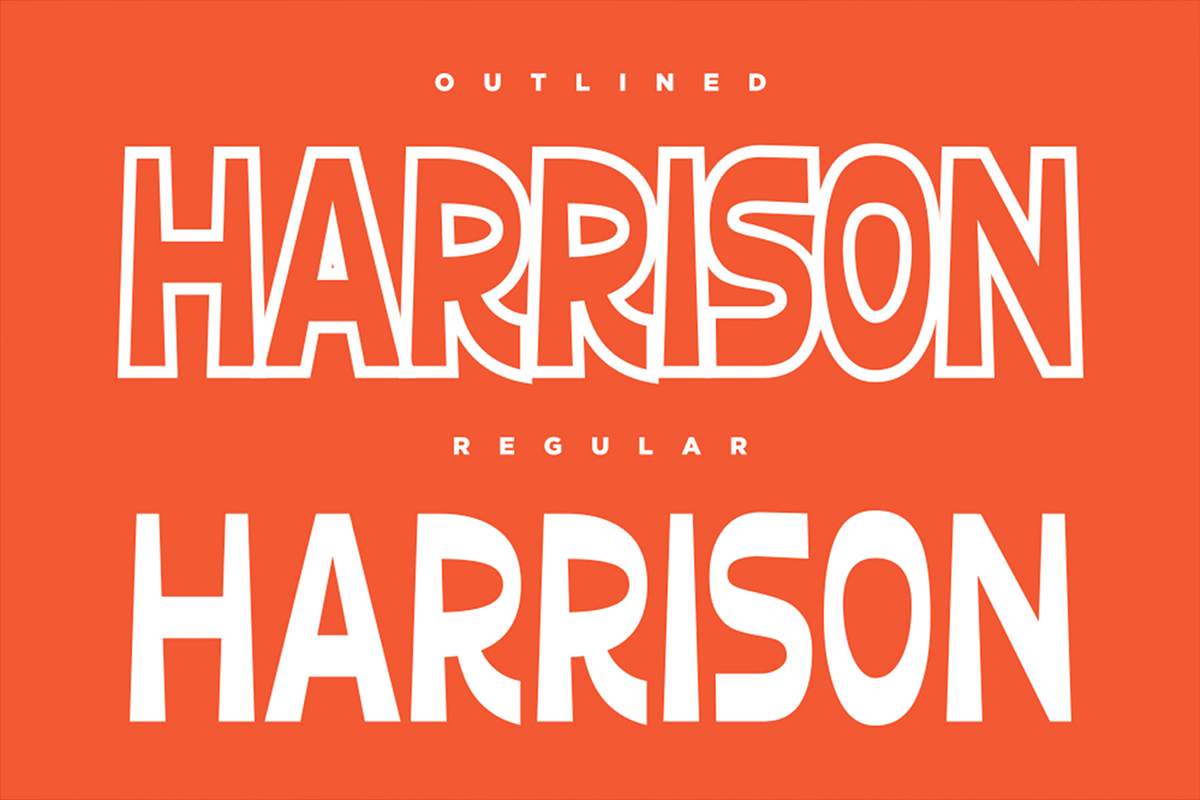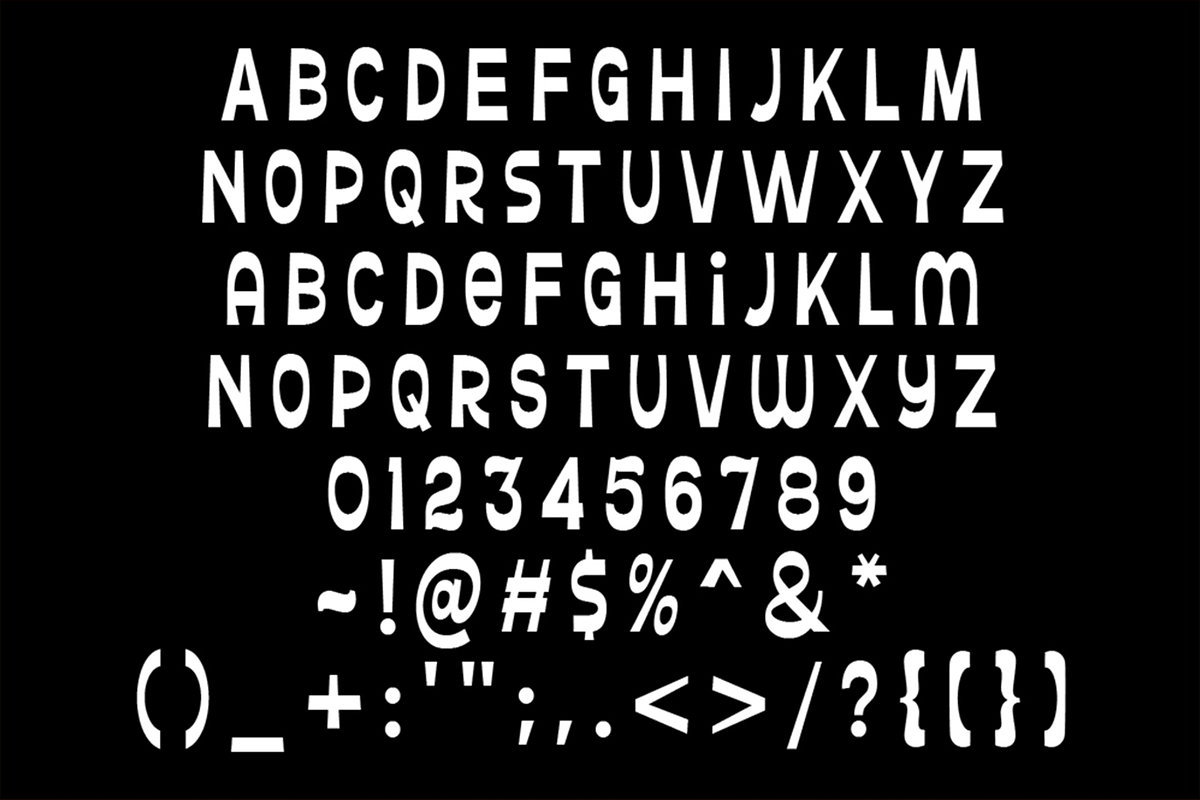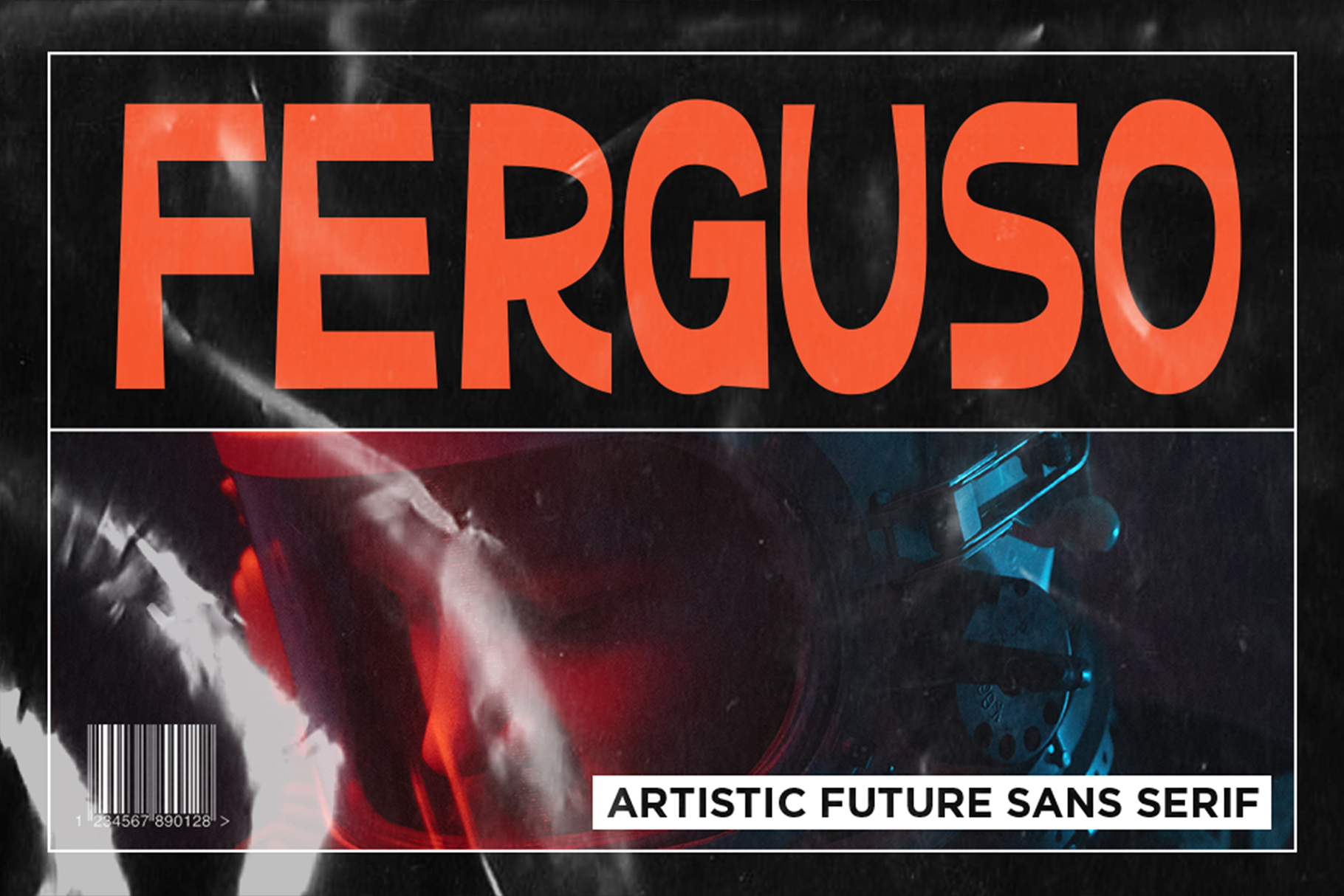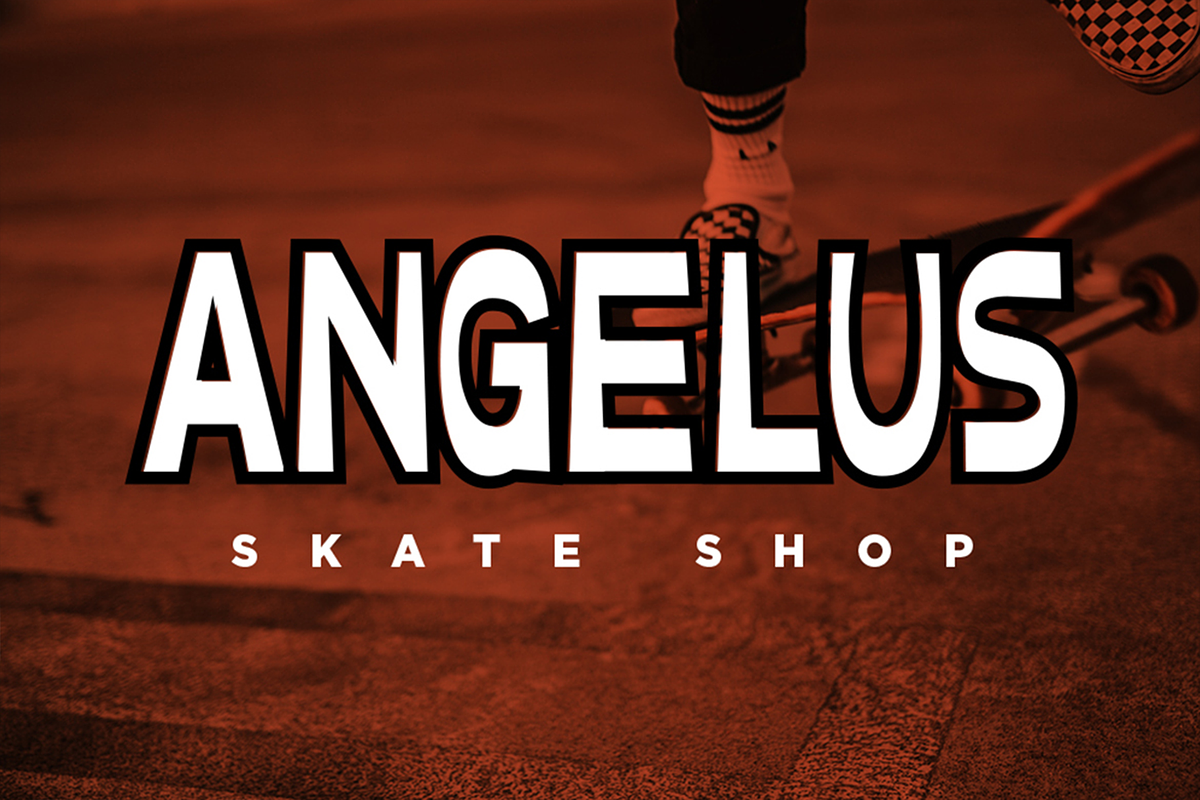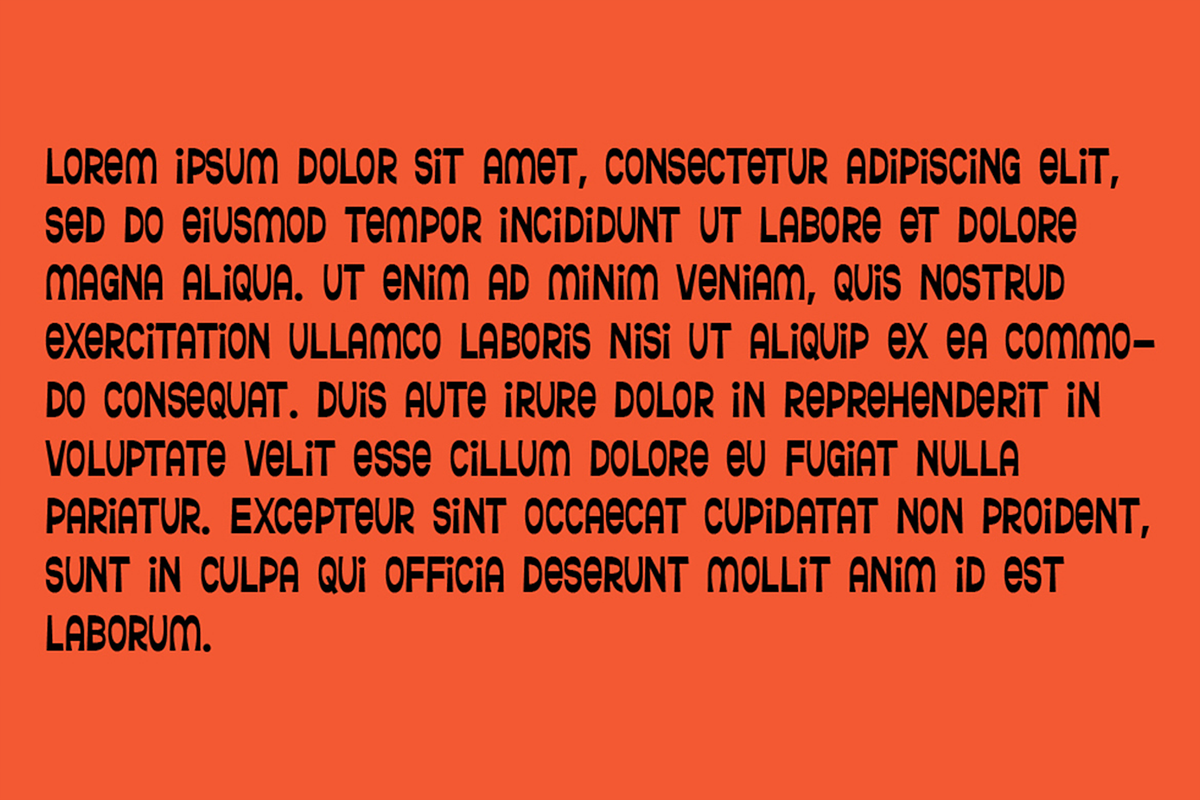
Ferguso - Aesthetic Sans Serif Fonts
For the sake of catching up with the trends of aesthetic design with the implementation of vintage poster design and 80s disco boogie music visual, we present you the Ferguso. An artsy fancy sans serif display font.
Perfectly fit for logo, branding, music album artwork, poster, store sign, street and urban branding, badges, beer labels, etc.